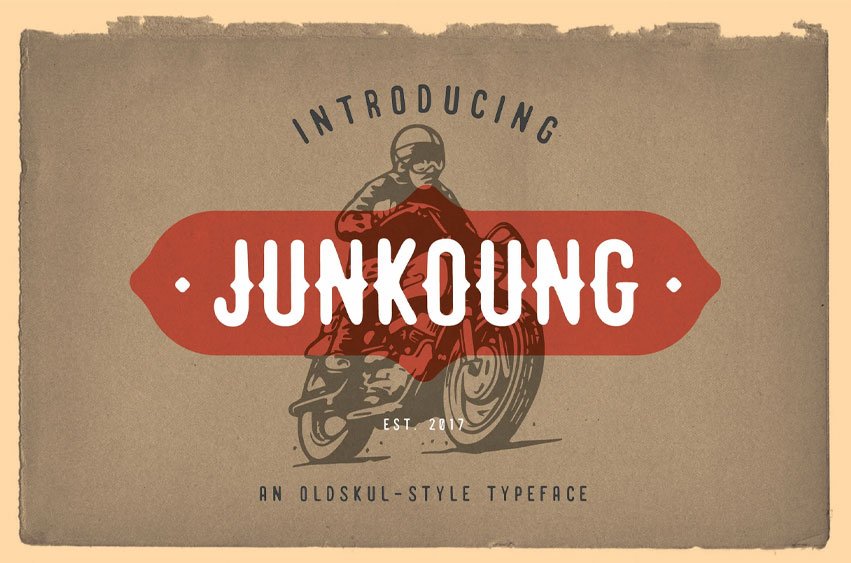
Junkoung Font
Junkoung Font All caps condensed sans combined with classic western style, Junkoung can give a retro look.
A perfect match for vintage style design.
• All caps, numbers and punctuation.